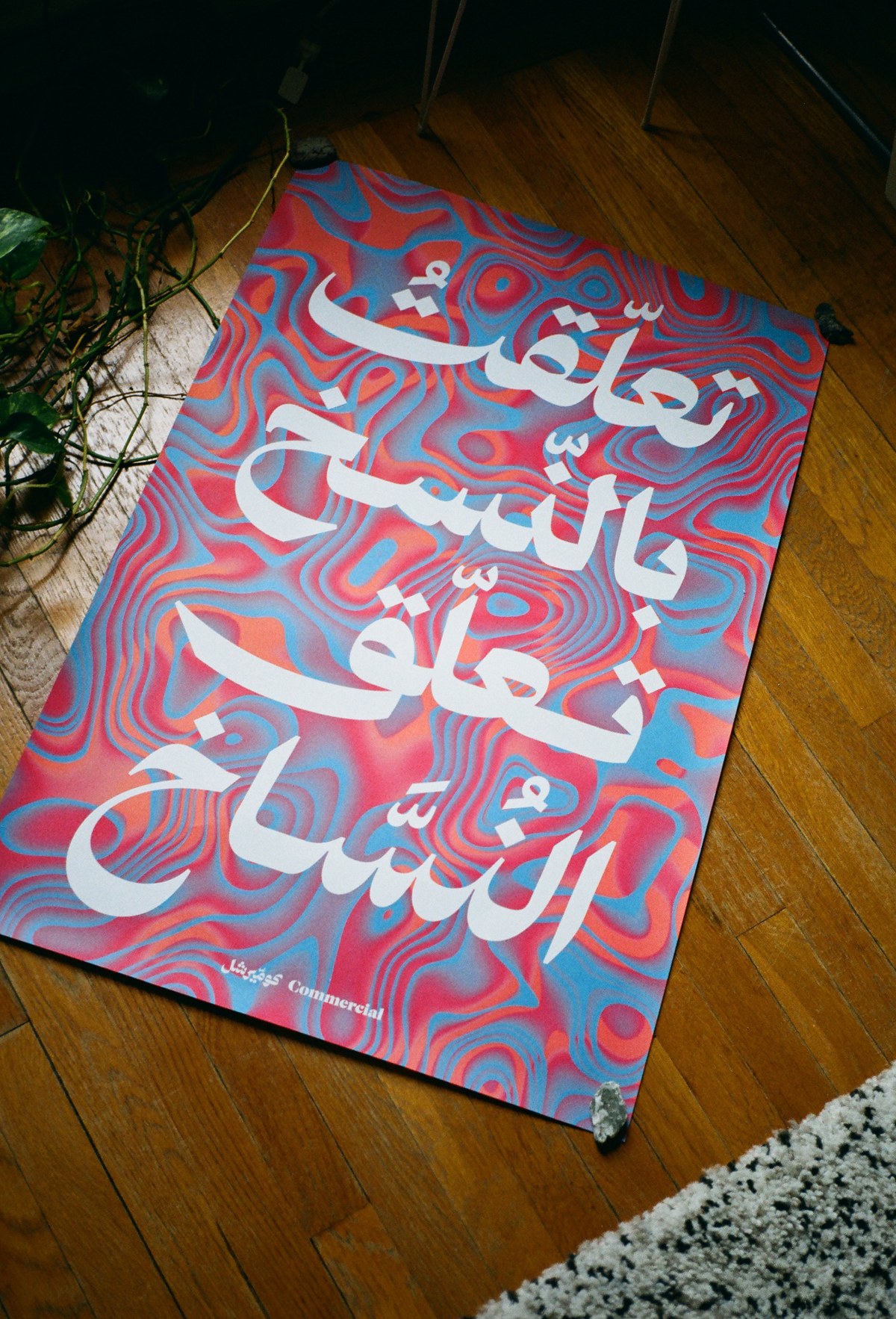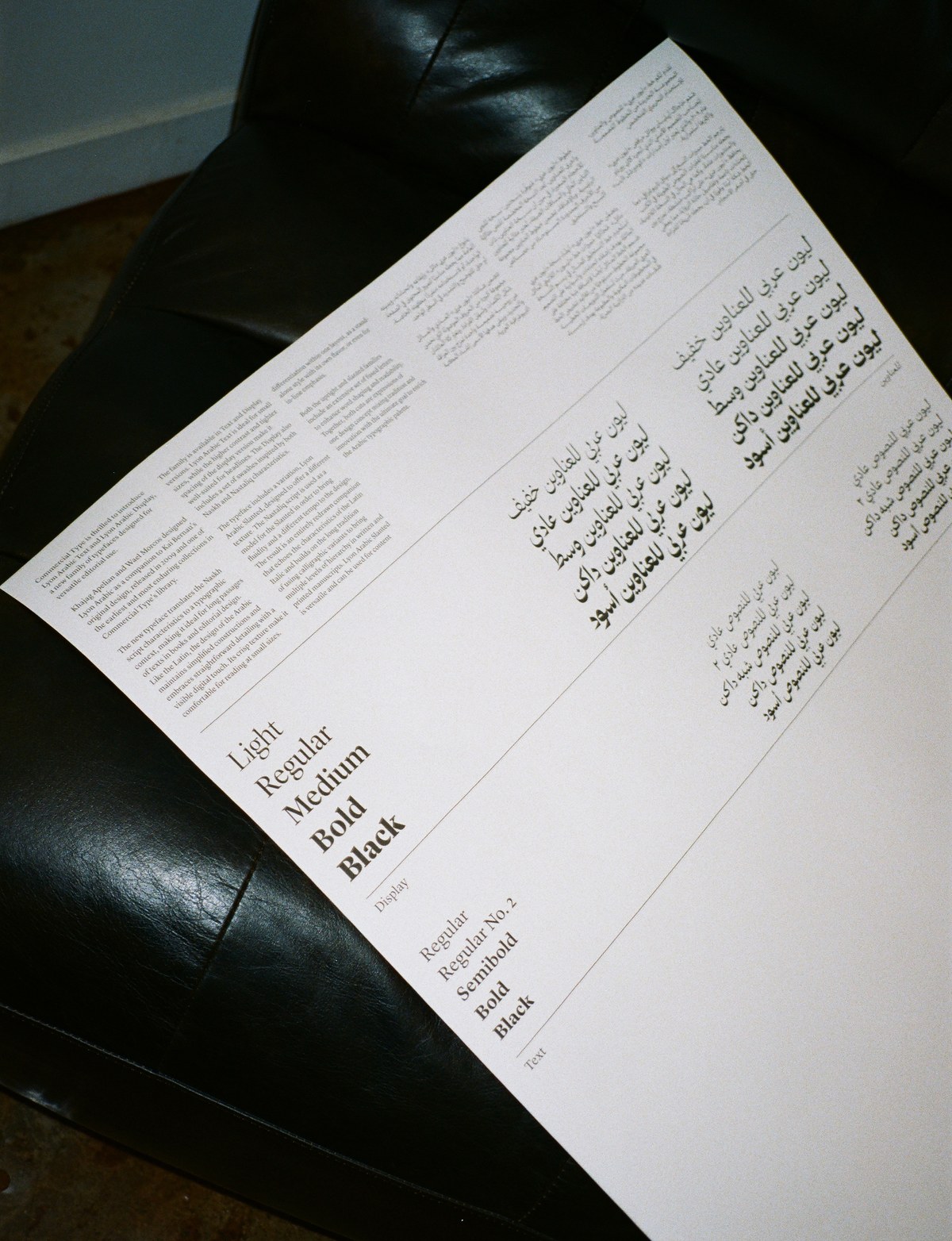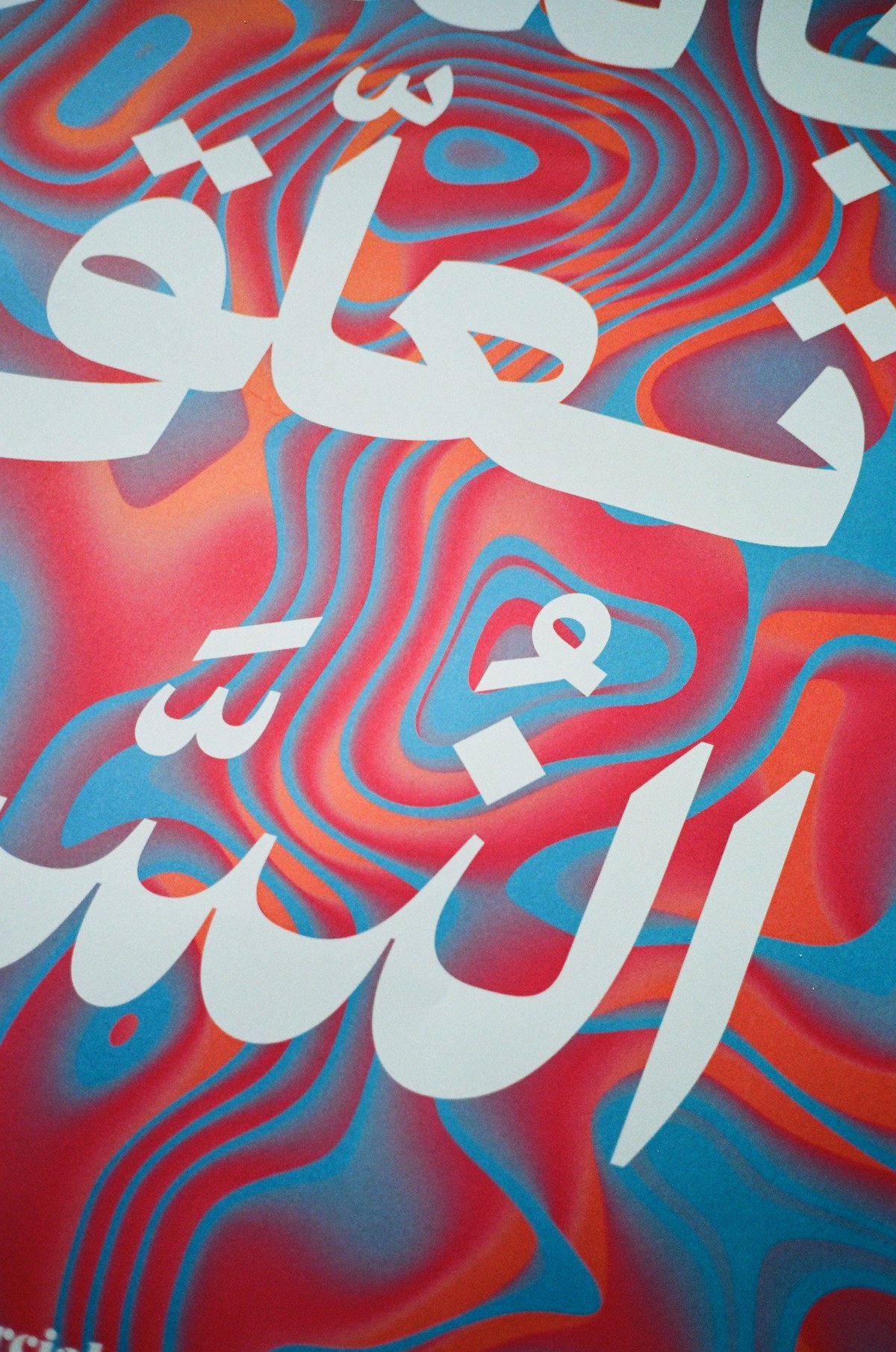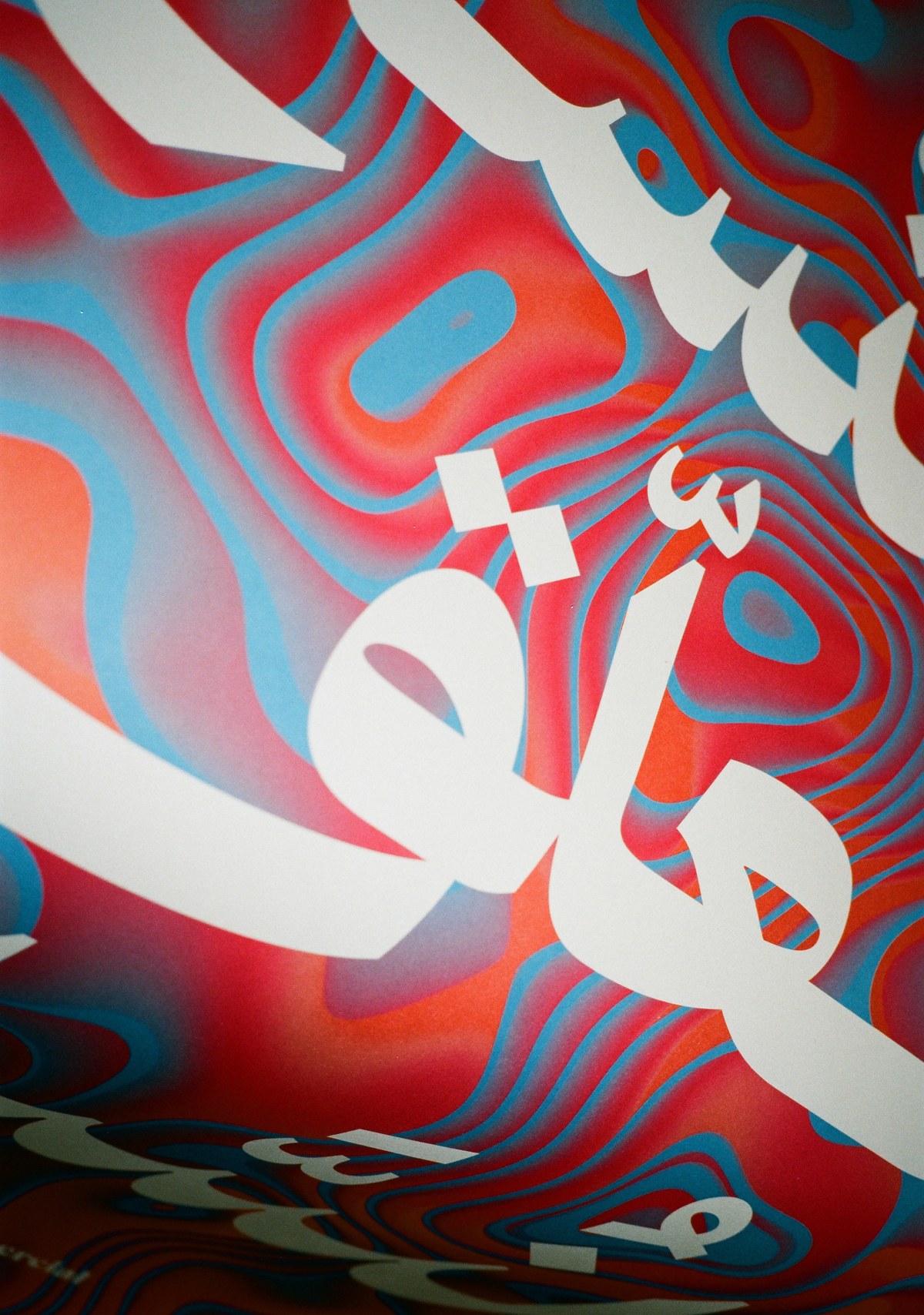
Wael Morcos and Khajag Apelian have designed a double-sided poster to celebrate the release of their Arabic extension to Kai Bernau's Lyon family. The front reads "I became attached to Naskh as if I'm a scribe", overlaid on an illustration generated by Just van Rossum as a modern interpretation of the paper marbling that is a hallmark of historical Arab-langauge book design. The poster is printed in three colors including an eye-popping fluorescent. The back is printed in black and features a synopsis of the family and a short bilingual summation of the design process.